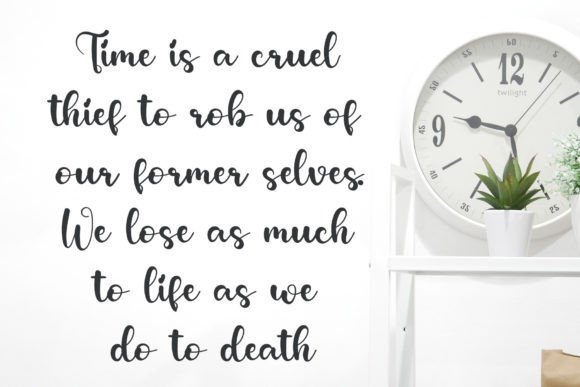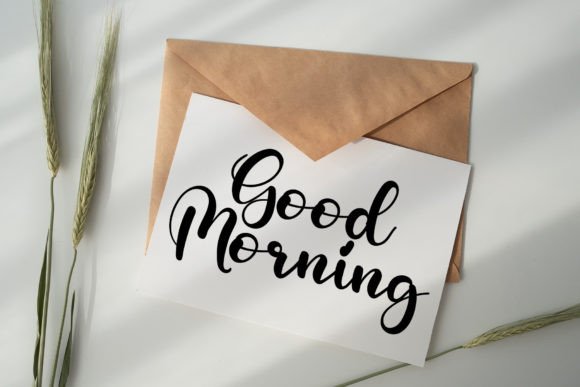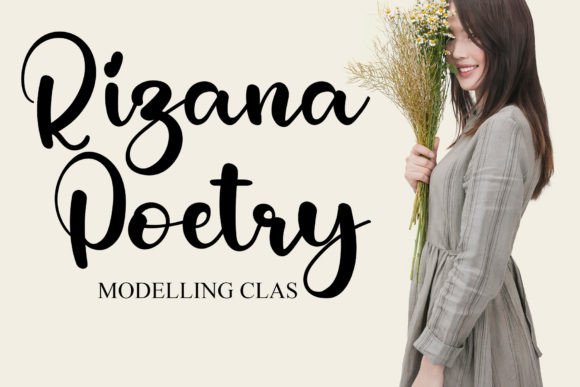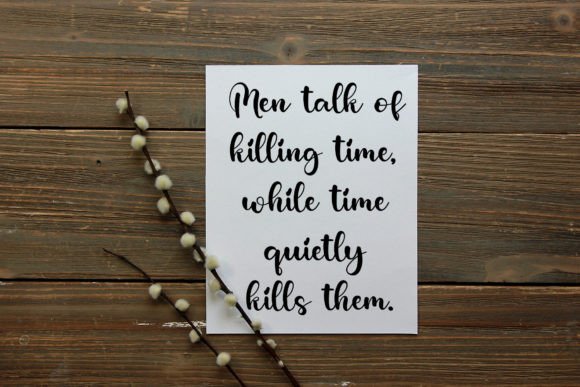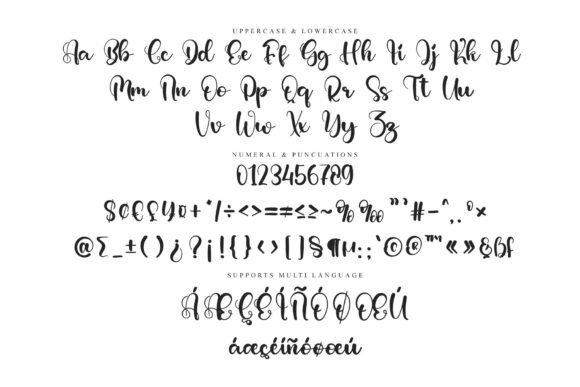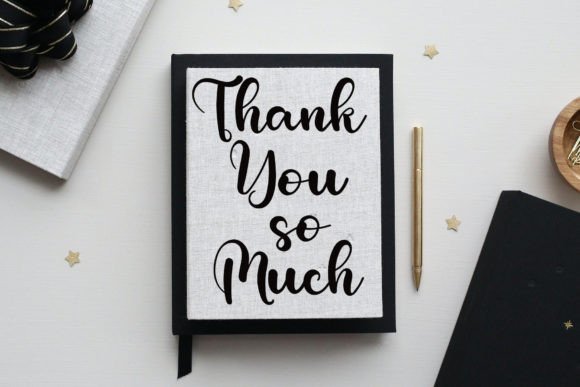
Introduction to Malware Font
Malware is a stylish handwritten font with a contemporary atmosphere and impeccable form, inspired by timeless classic calligraphy.
Balanced and varied, this font was designed to enhance the beauty of your projects .
Key Features of Malware Font
Why Choose Malware Font?